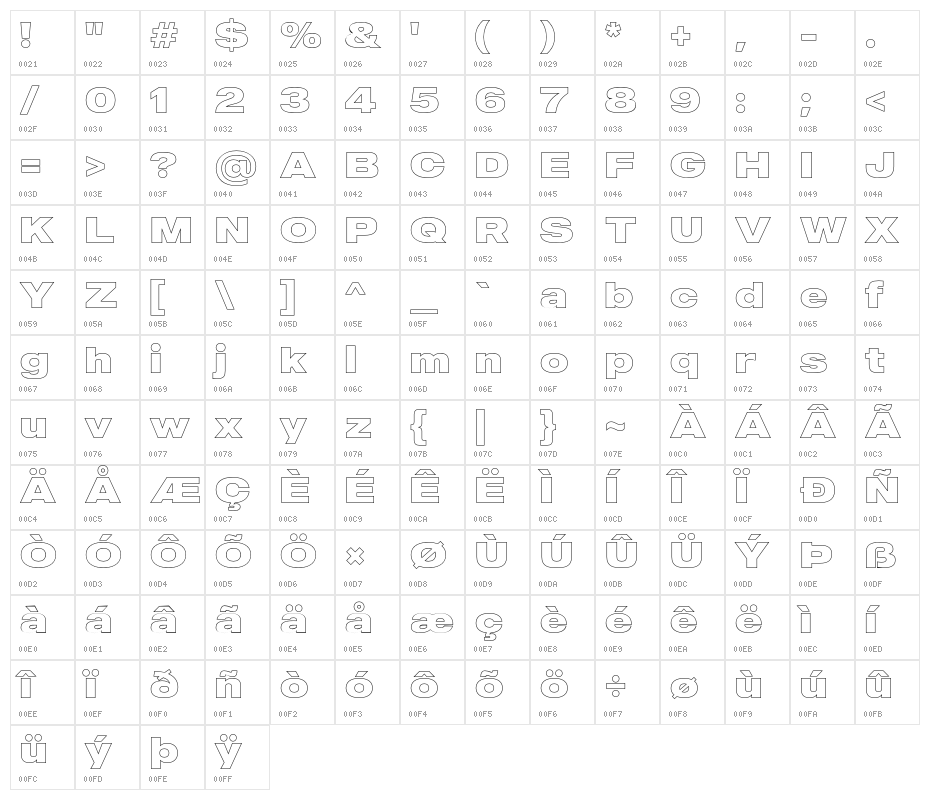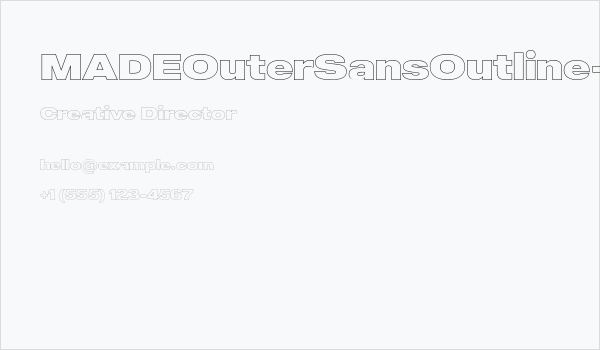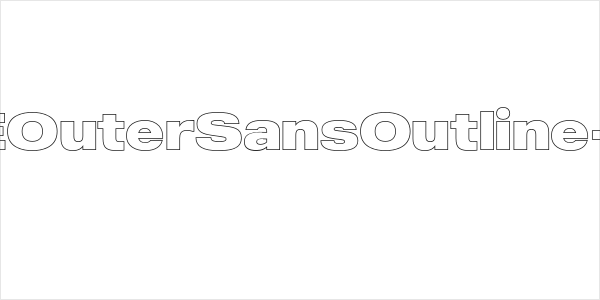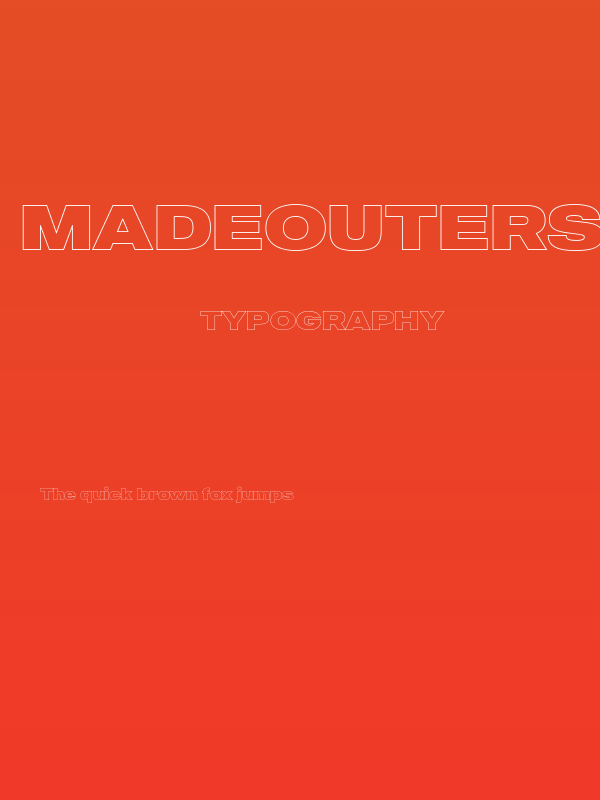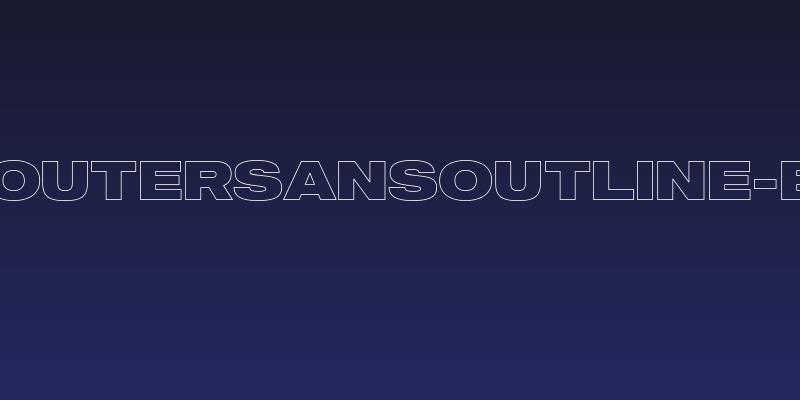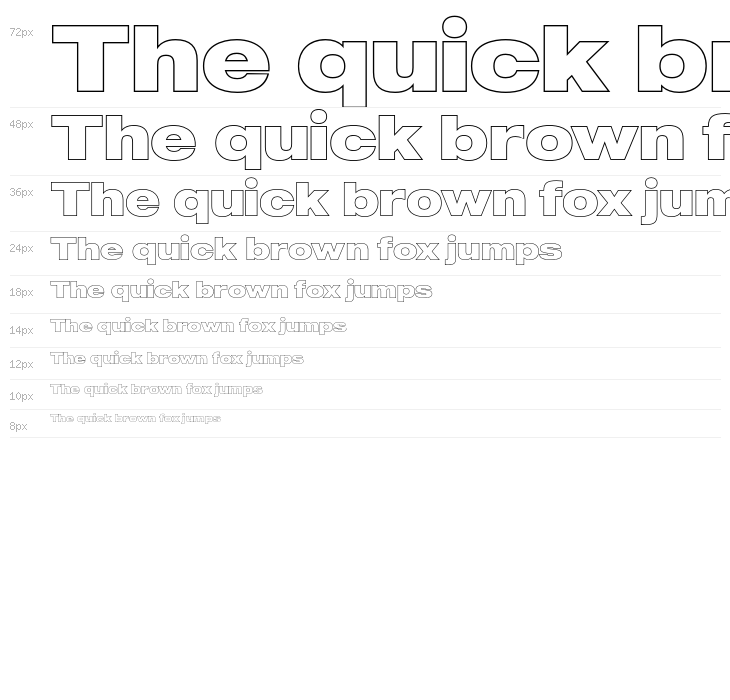
MADEOuterSansOutline-Black Font
MADEOuterSansOutline-Black Description
This font features a bold, outlined style with a modern and clean aesthetic. The characters are uppercase and lowercase letters, numbers, and a variety of special symbols. Each character is defined by a thick outline, giving it a distinct and eye-catching appearance. The font maintains a consistent weight throughout, with uniform stroke thickness that enhances its readability. The spacing between characters is normal, ensuring clarity and legibility. Its geometric shapes and structured form make it suitable for contemporary design projects.
| Proposed Projects | Ideal for headlines, posters, logos, and branding materials where a strong visual impact is desired. |